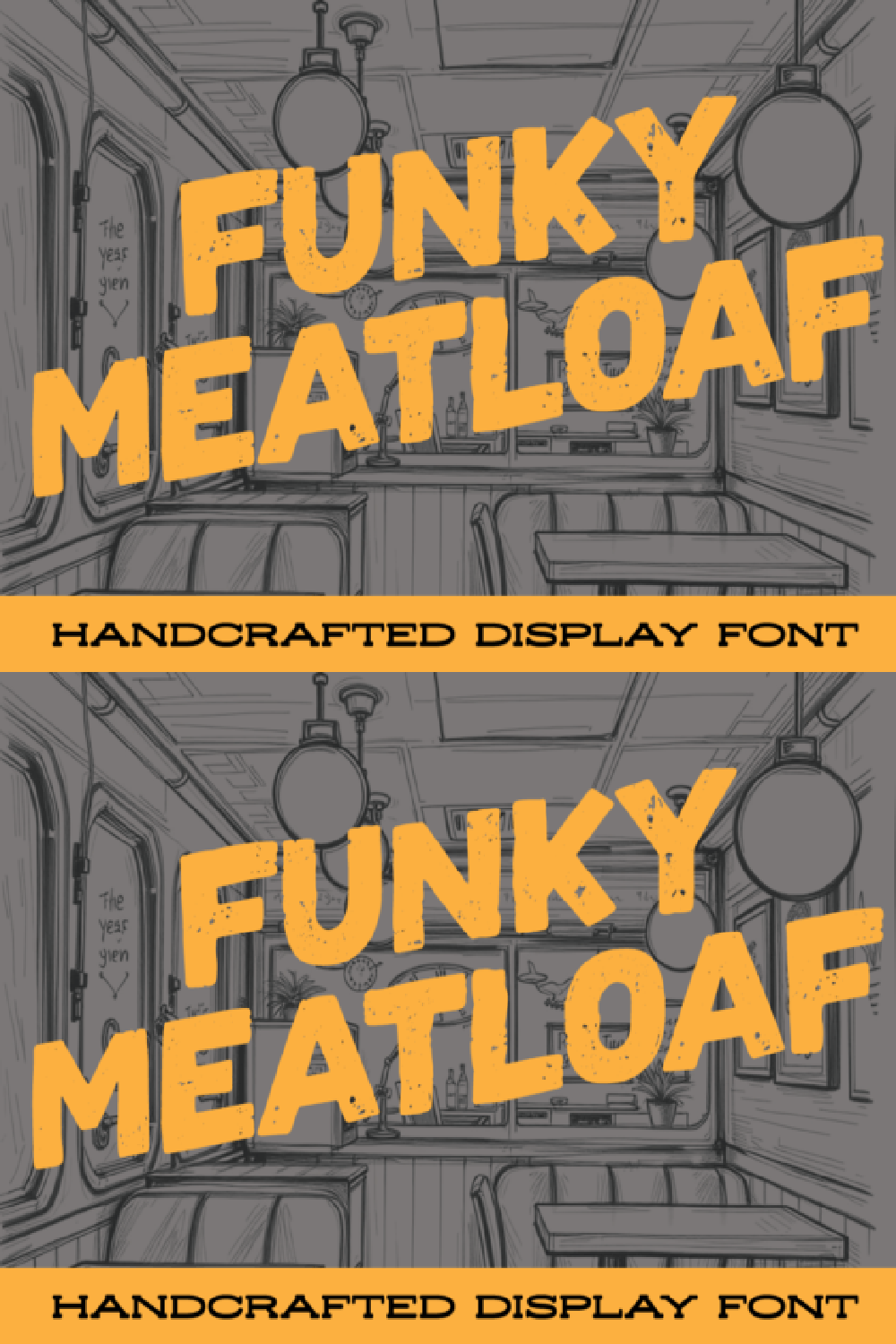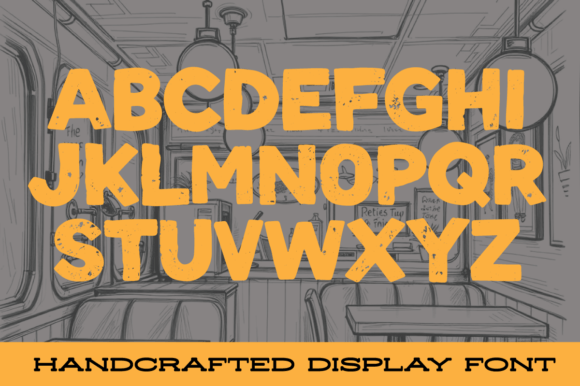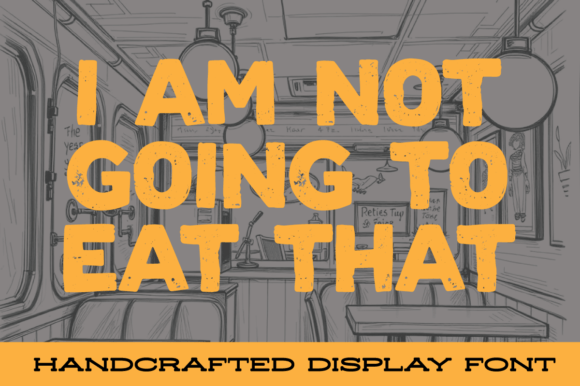
Funky Meatloaf Font
About the Funky Meatloaf Font
Step up your design game with Funky Meatloaf Font, a font that exudes confidence and style. This bold and distressed font is great for big bold and fun designs. Posters, party invites and more. Funky Meatloaf has soft rounded edges and a distressed vintage texture.
Funky Meatloaf excels in headline applications, short bursts of text on posters, packaging, and invitations where its bold, playful nature shines. The distressed texture adds a vintage feel, ideal for projects evoking nostalgia or a handcrafted aesthetic. However, its low x-height and distressed nature make it unsuitable for body text or UI elements requiring high readability.
Consider pairing Funky Meatloaf with a clean sans-serif like Open Sans for contrast and improved readability in supporting text. For a more vintage feel, a classic serif like Garamond could work well, balancing the font’s playful energy with a touch of sophistication. Avoid pairing it with other heavily distressed fonts, as this will create visual chaos.
Funky Meatloaf’s personality is best described as bold, playful, and slightly rebellious. It’s perfect for brands targeting a young, energetic audience or projects with a vintage, rock-and-roll vibe.